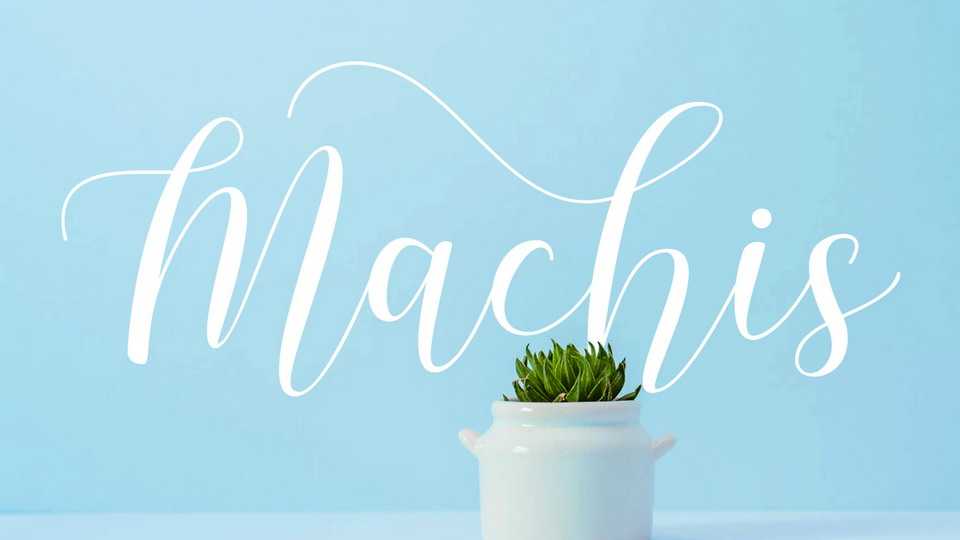
Download Machis font, a lovely modern calligraphy typeface. It includes amazing swashes in 3 styles, which gives you the opportunity to create multiple unique designs with just this one download.
Designer: Letteratom